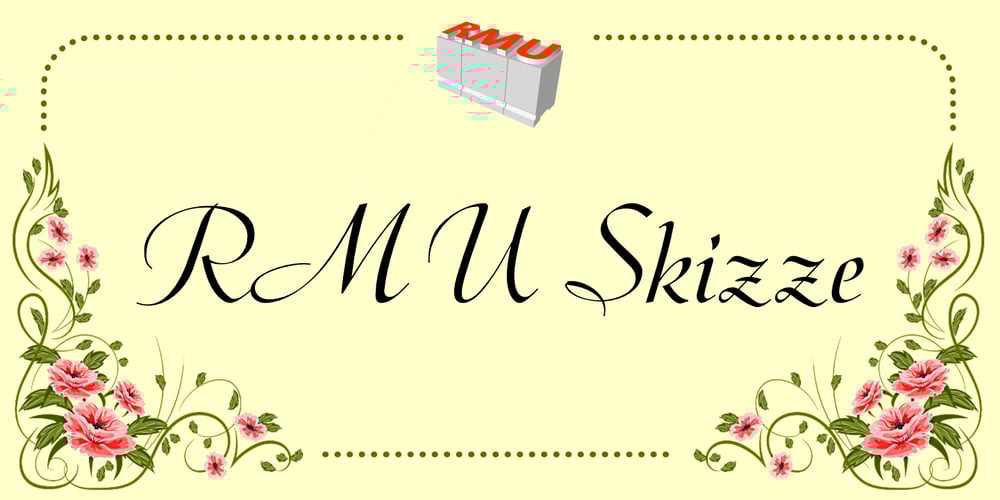
RMU Skizze Font Family was designed by Ralph M. Unger and published by RMU. RMU Skizze contains 1 styles and family package options. In 1935 Ludwig & Mayer released Walter Höhnisch’s Skizze. This beautiful font was completely redrawn and redesigned for today’s usage. The following letters have stylistic alternatives: E, F, P, S, and T.To get access to all ligatures, it is recommended to both activate Standard and Discretionary Ligatures.